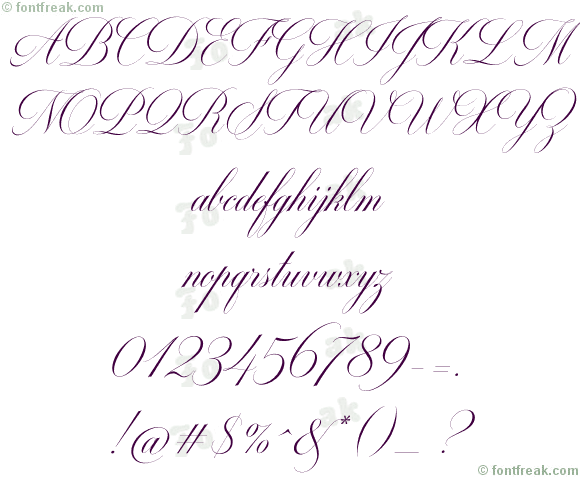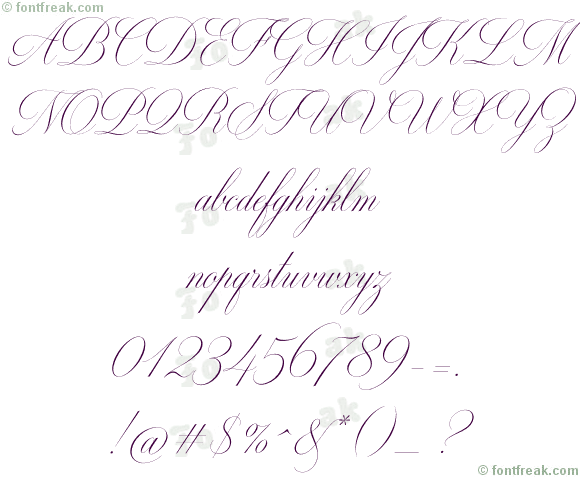
MiltonTwo
MiltonTwoBold
MiltonTwo, designed by Youssef Habchi, is an elegant script font that captures the essence of classic calligraphy while maintaining a contemporary flair. As a decorative typeface, MiltonTwo features graceful curves and flowing strokes that exude sophistication and charm. The font is characterized by its moderate stroke weight and subtle contrast, which adds a sense of refinement to any text. The spacing is well-balanced, allowing for easy readability, while decorative elements enhance its artistic appeal without overwhelming the viewer.
This font is particularly well-suited for a variety of applications. It shines in wedding invitations, where its romantic style sets the perfect tone for special occasions. Additionally, MiltonTwo is an excellent choice for branding materials, helping small businesses convey a polished image. It also works beautifully on restaurant menus, adding a touch of elegance to the dining experience. For content creators, this font can elevate blog headers or social media graphics, making them stand out in a crowded digital space.
What sets the MiltonTwo font apart is its unique ability to blend tradition with modernity, making it a standout choice for anyone seeking to infuse their designs with a touch of class. With its distinctive style and practical applications, MiltonTwo font free download is a valuable addition to any designer's toolkit, ensuring that your projects leave a lasting impression.